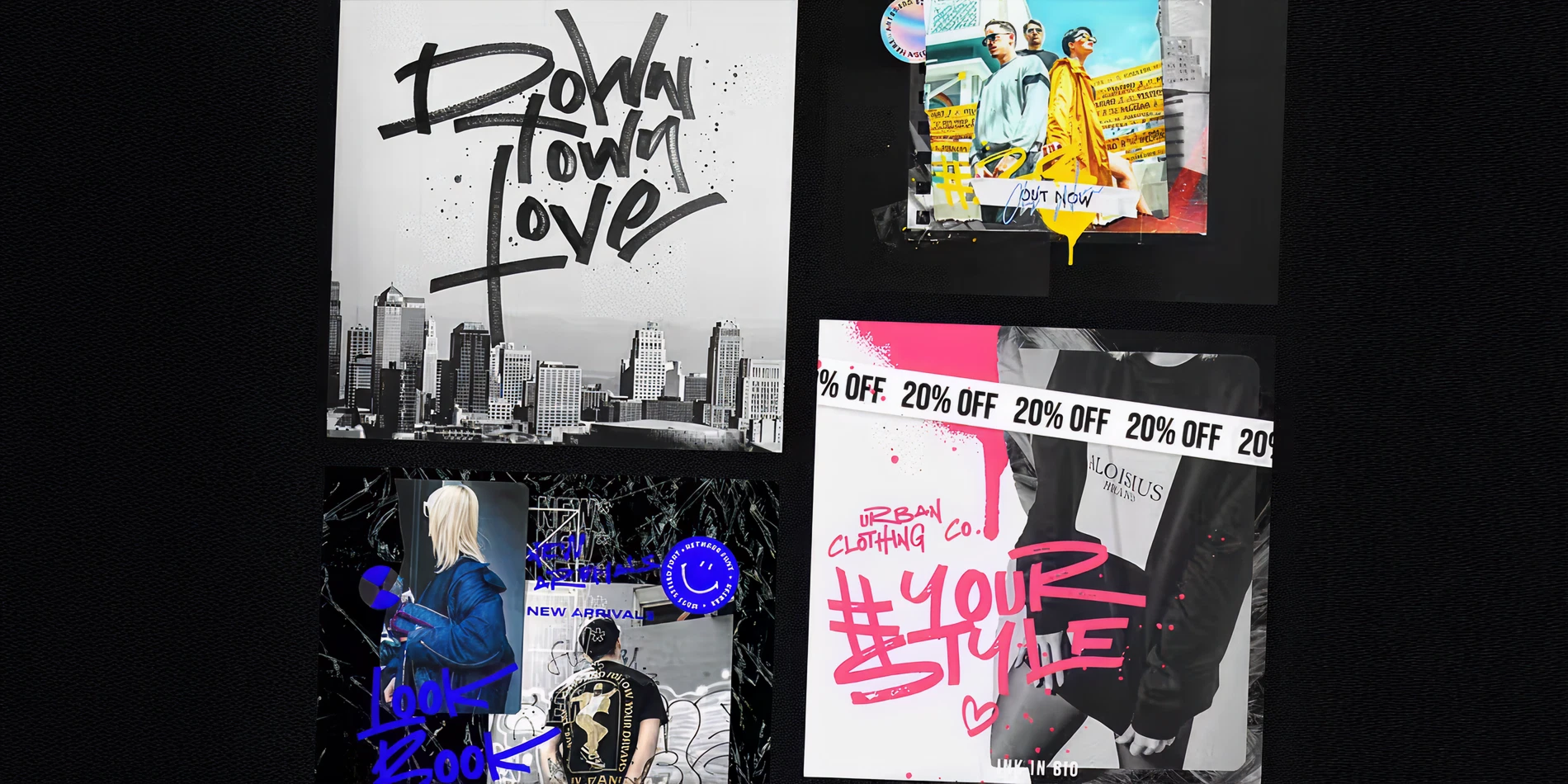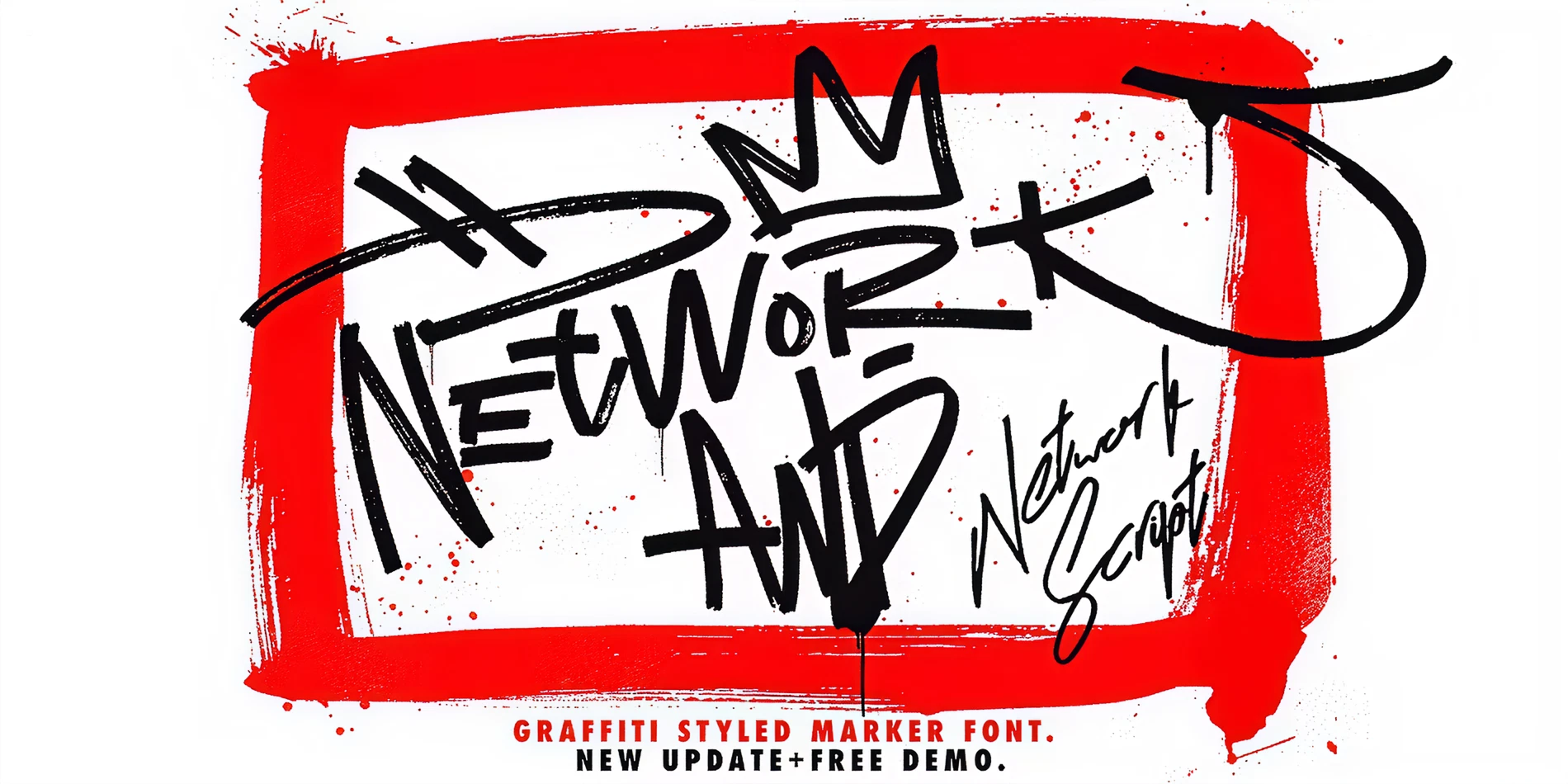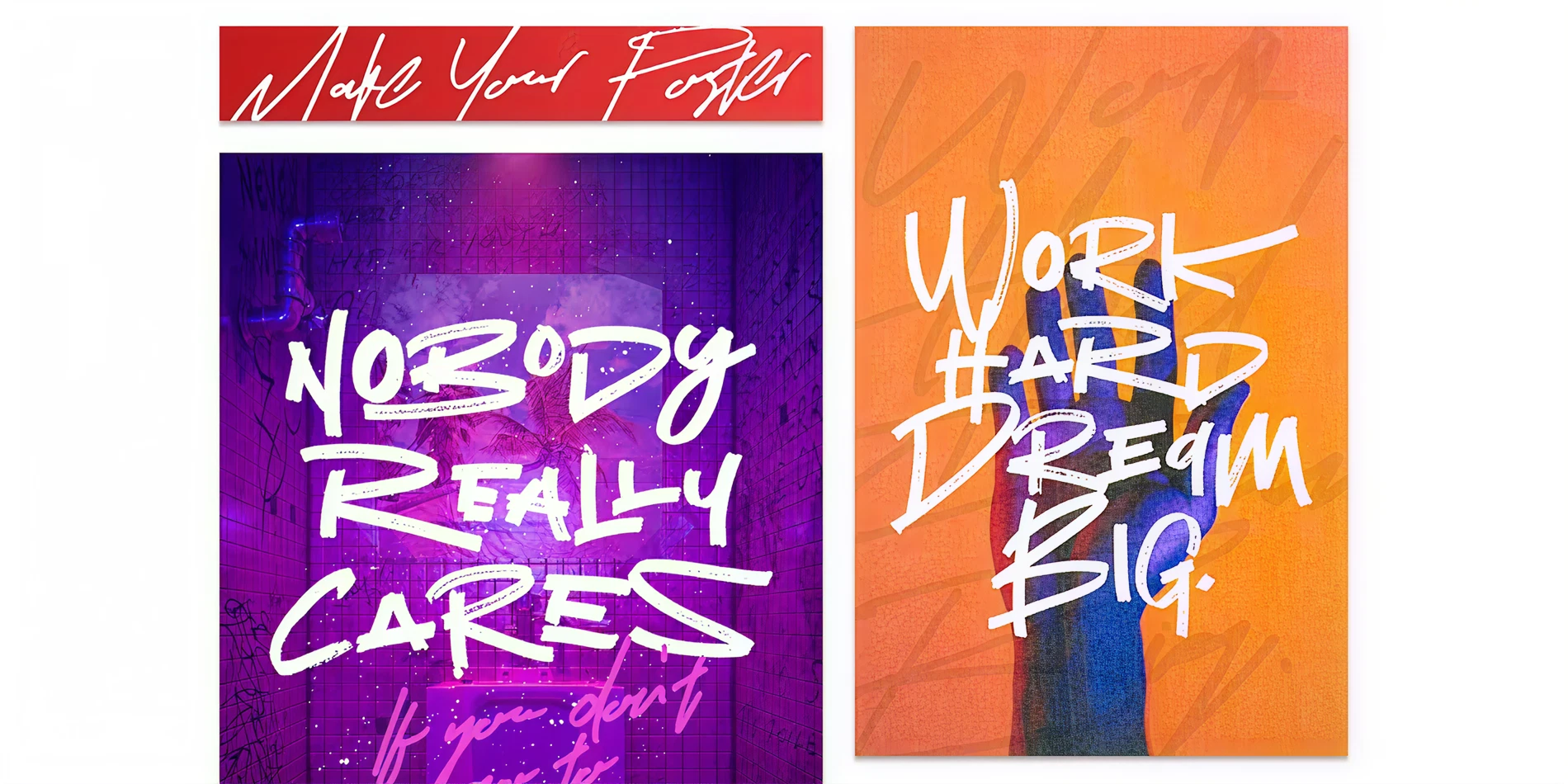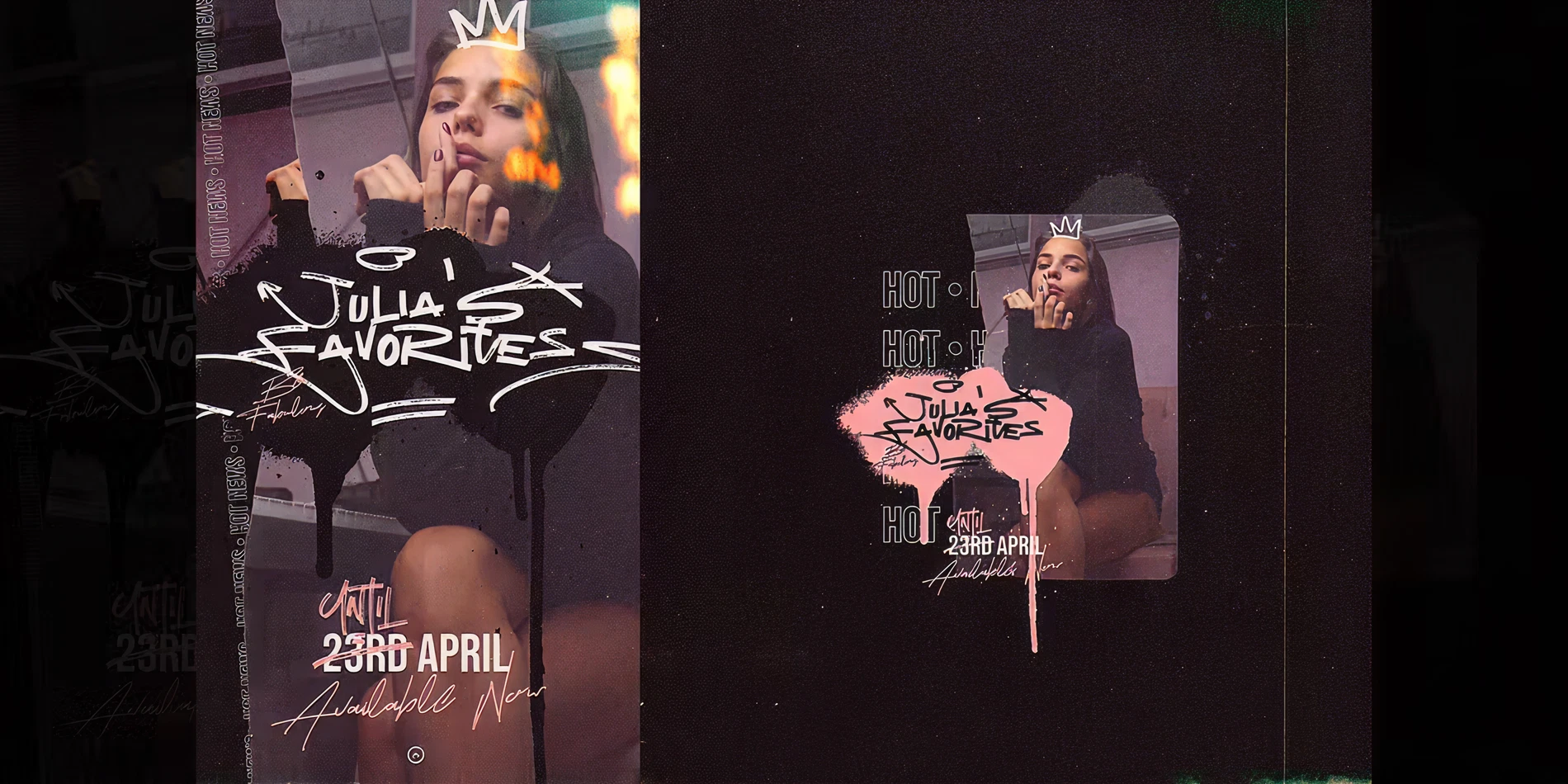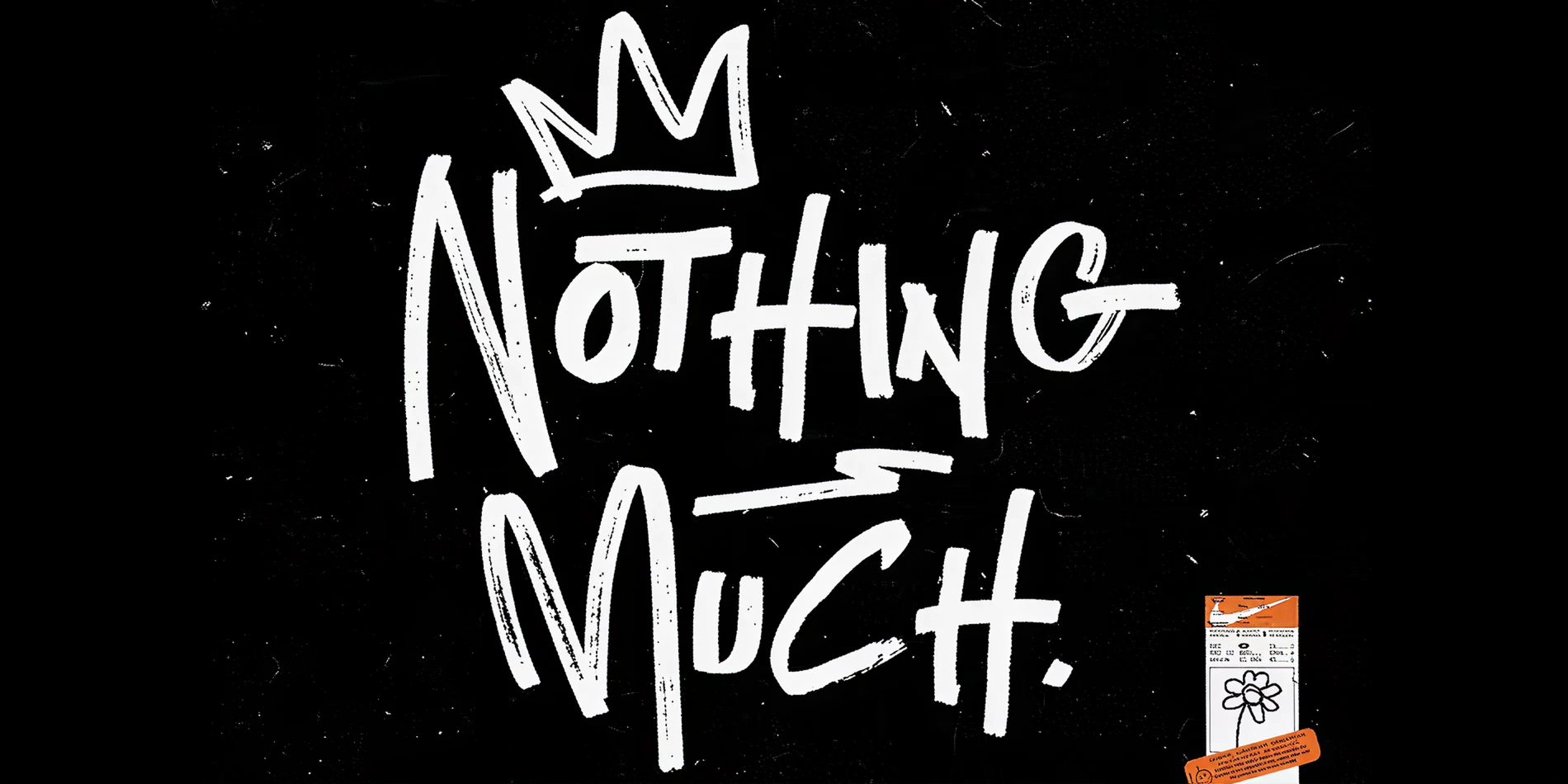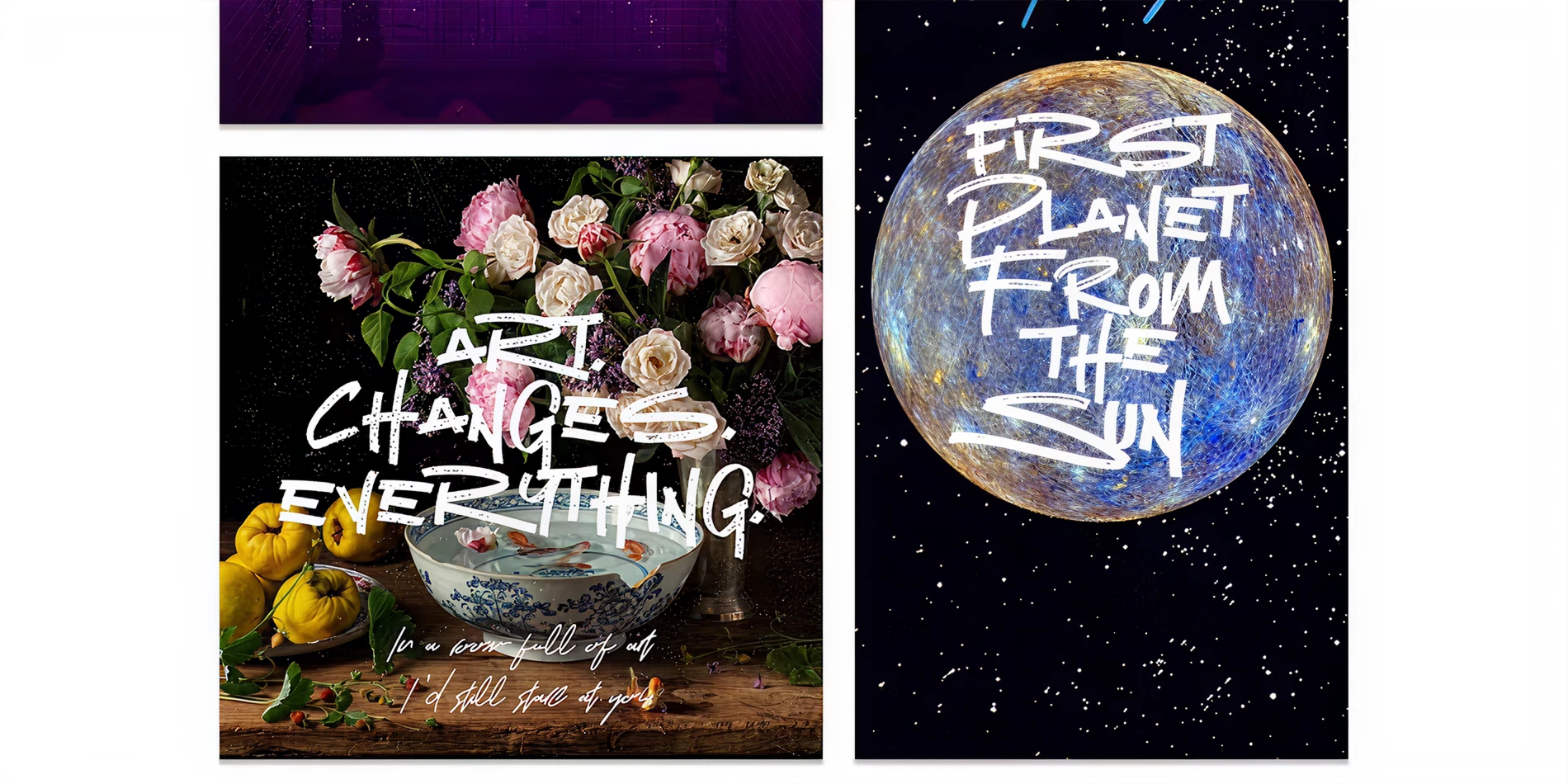
Network: The Ultimate Hyper-Realistic Marker Font Family
Bring the raw energy of the streets into your digital workspace with Network, a marker-style graffiti font designed..for total realism. We didn’t just create a font; we digitised the flow of a real permanent marker. Whether you are designing for streetwear, album covers, urban merchandise, or extreme sports branding, Network delivers an unmatched authentic look.
Unlike standard graffiti fonts that look repetitive, Network is built for uniqueness. With multiple alternate files and a dedicated script version, you can mix and match glyphs to ensure no two words look exactly the same. It’s not just a typeface; it’s a complete urban design toolkit.
Why Network is the leader in its class:
True-to-Life Texture: Optimised specifically to retain the grit and flow of a fresh marker tag.
Total Customisation: Includes a massive library of swashes, alternates, and signature styles to build your own “mark.”
Versatile Usage: Perfect for logo design, aggressive headers, apparel, and social media content that needs to stand out.
Network (Main): The core marker font.
Network Alt & B-Alt: Two full sets of alternate letters to prevent repetitive characters.
Network Script: A complementary signature style that pairs perfectly with the bold marker.
Network Swashes: Underlines, splashes, and strokes to frame your text.
Network Calt: A bonus glyph library for abstract shapes and extra textures.